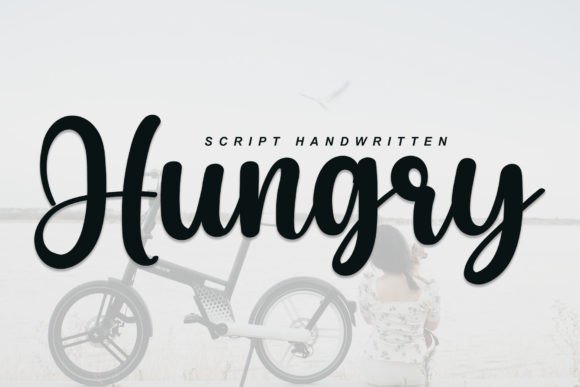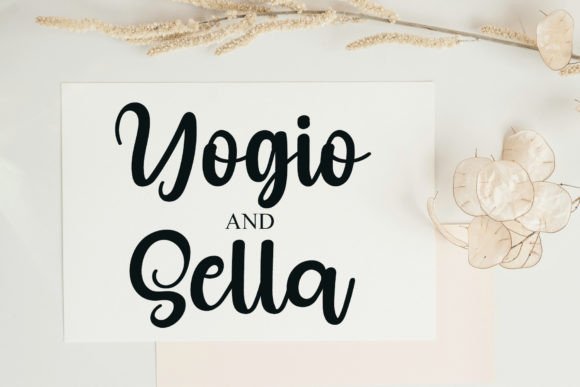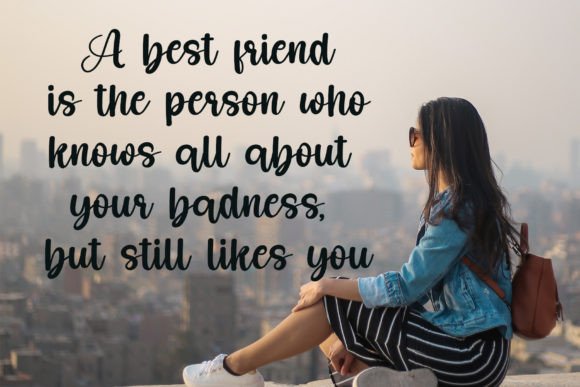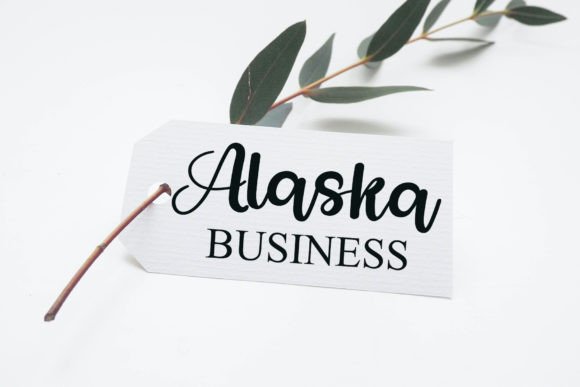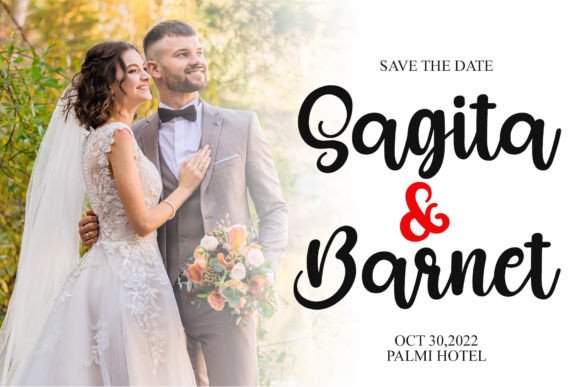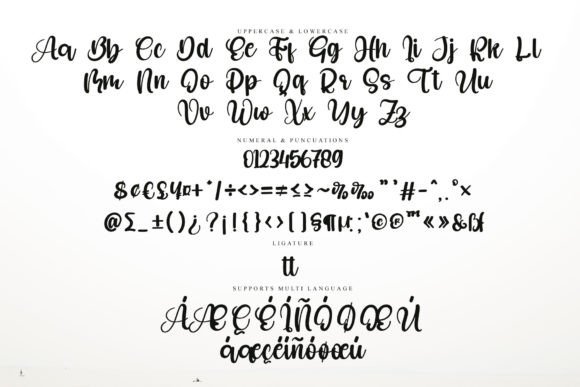
Hungry Font
Hungry is a stylish and dainty script font. It is suitable for any projects such as logos, branding projects, labels, photography, watermark, special events, and all your other lovely projects that need a beautiful handwritten touch.